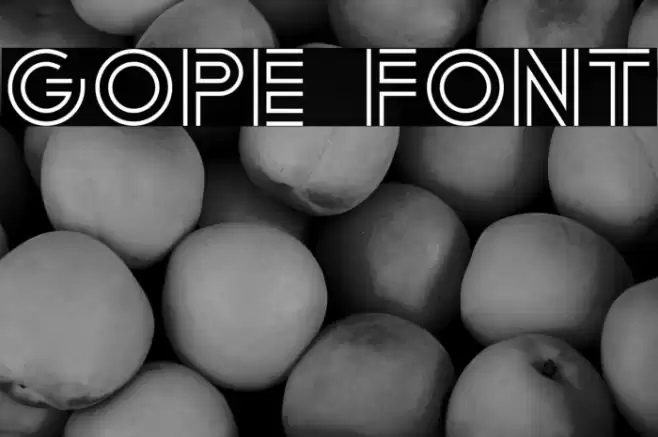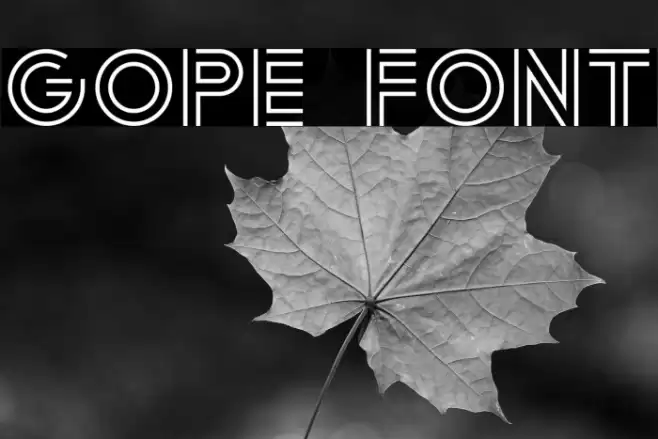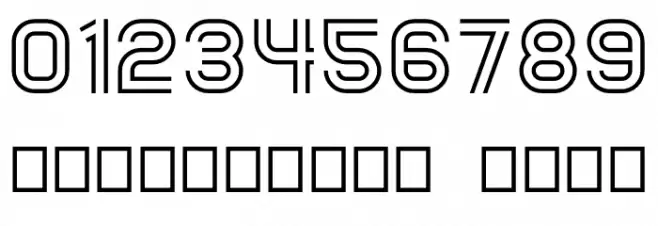
Gope Font
Gope Description
This font features a modern, geometric design with clean, double-line strokes that create a sense of depth and dimension. The uppercase letters are bold and structured, with consistent line thickness that gives a uniform appearance. The numerals follow the same style, ensuring cohesion across different types of content. The absence of lowercase letters and special characters suggests a focus on simplicity and clarity. The font's design is reminiscent of art deco influences, making it suitable for projects that require a touch of elegance and sophistication.
A modern, geometric font with double-line strokes and art deco influences from Regular fonts.